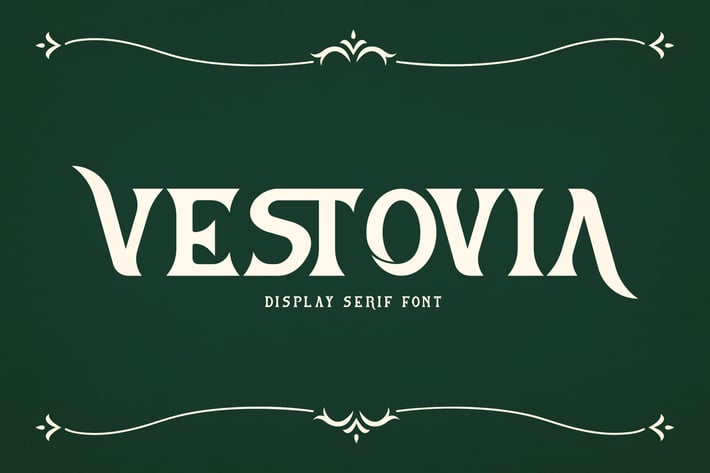
Vestovia Display Serif Font
Vestovia is a bold and elegant display serif font inspired by classic typography with a modern decorative twist. Its strong contrast, sculpted curves, and vintage ornaments give it a timeless yet refined character—perfect for designs that demand attention and sophistication.
Elegant display serif with classic ornamental flair
Strong letter contrast for impactful headlines
Stylish curves with a vintage-modern balance
High readability for branding and editorial use
Luxury & heritage branding
Editorial headlines & magazine covers
Restaurant, café, and hotel identities
Packaging & label design
Posters and promotional visuals
Where classic elegance meets bold modern presence—crafted to make every title unforgettable.*
Elegant display serif with classic ornamental flair
Strong letter contrast for impactful headlines
Stylish curves with a vintage-modern balance
High readability for branding and editorial use
Luxury & heritage branding
Editorial headlines & magazine covers
Restaurant, café, and hotel identities
Packaging & label design
Posters and promotional visuals
Where classic elegance meets bold modern presence—crafted to make every title unforgettable.*